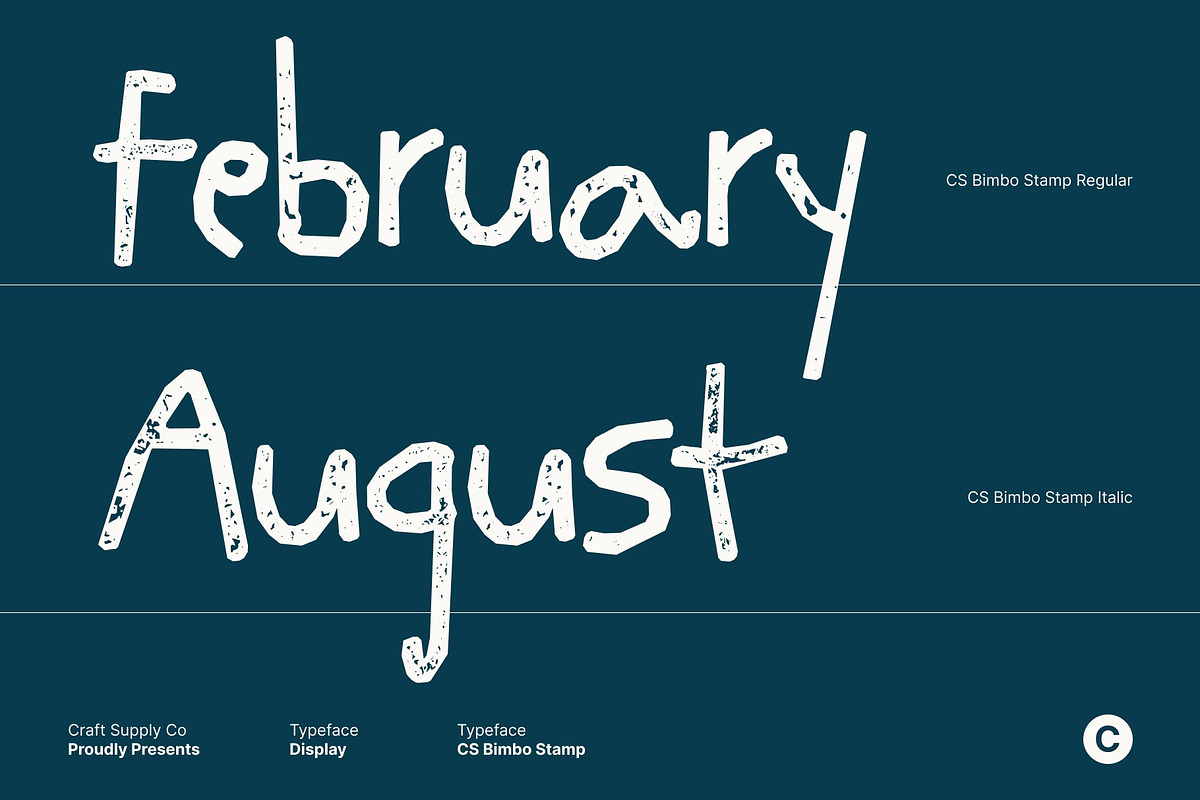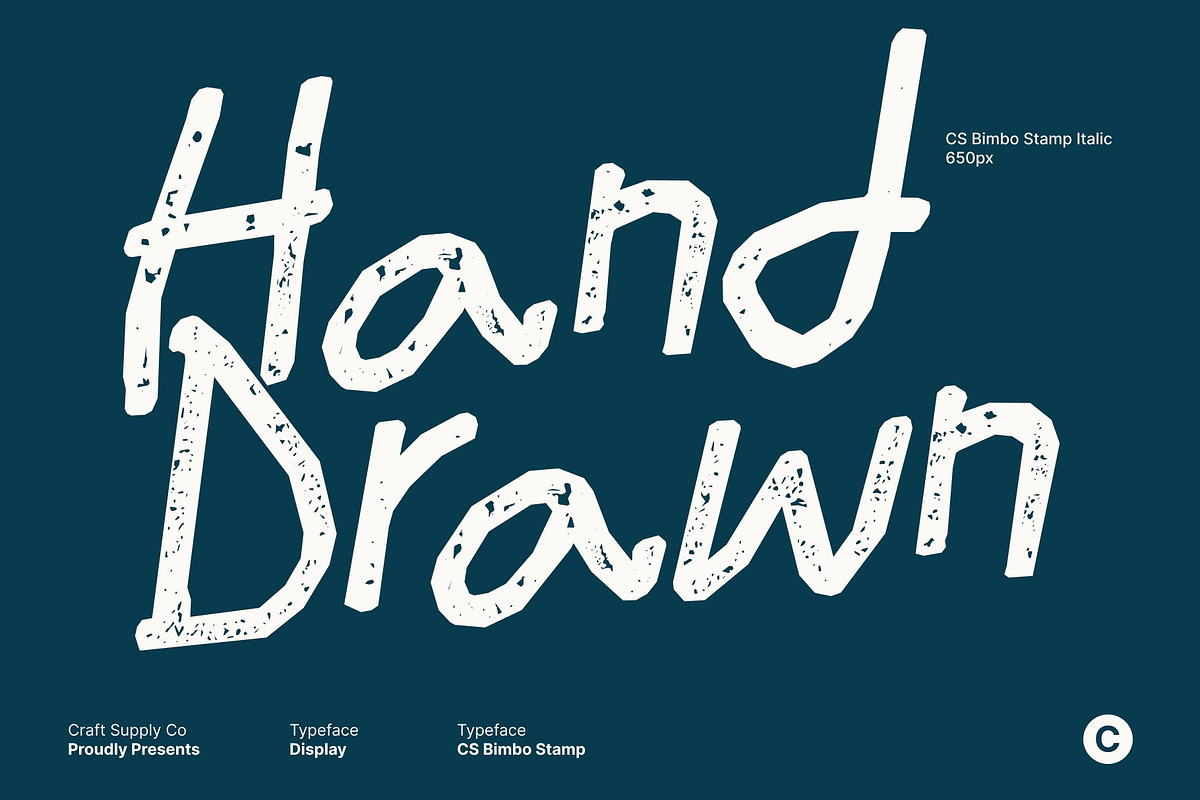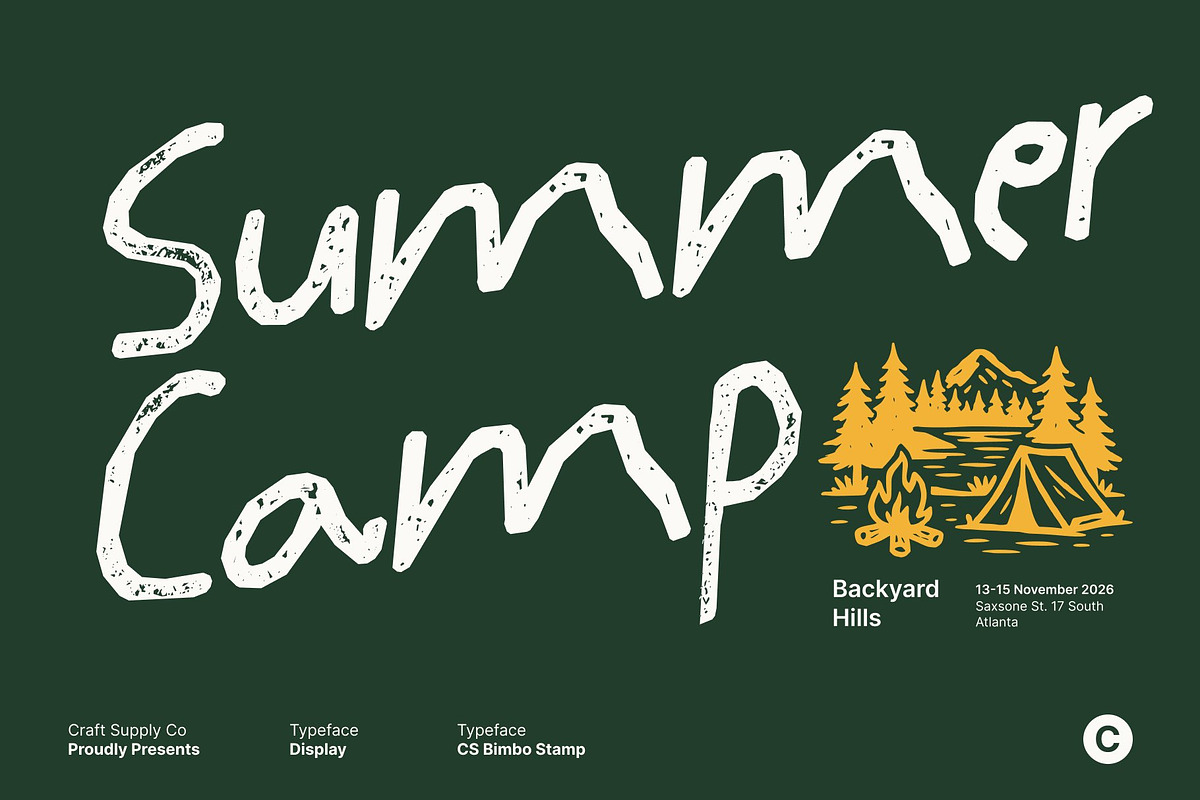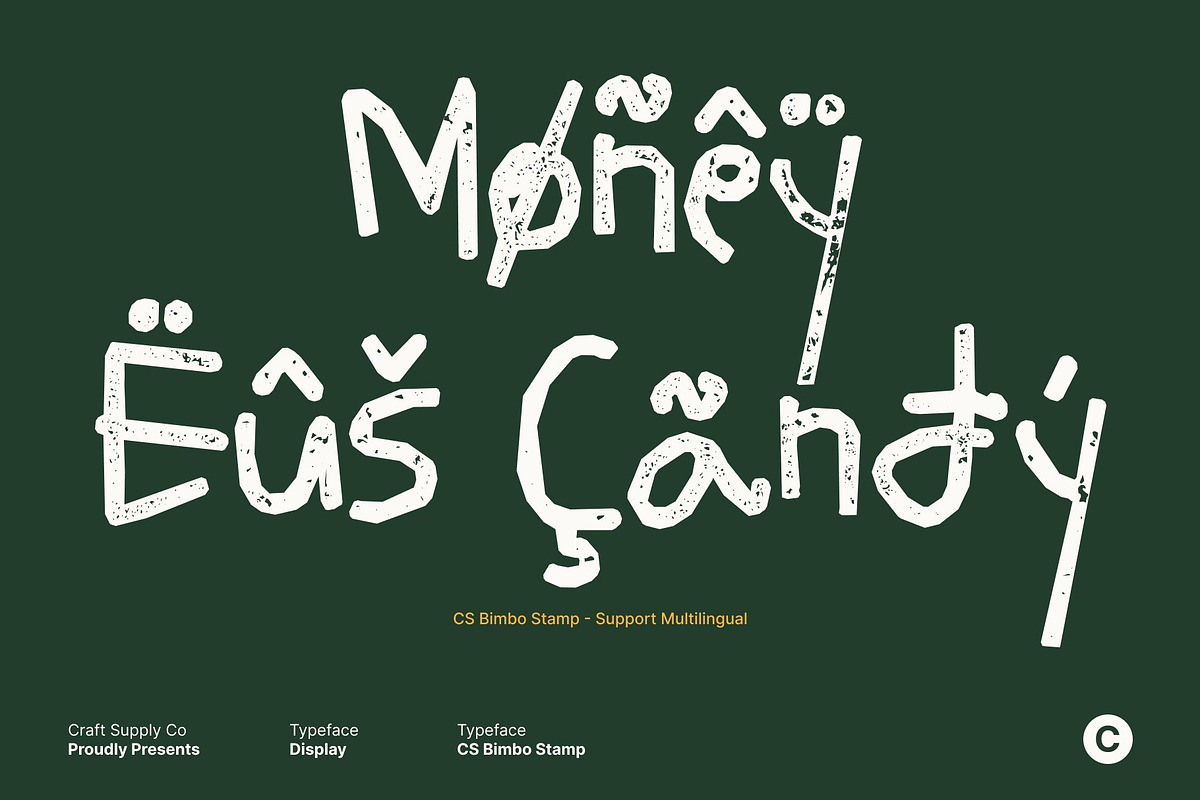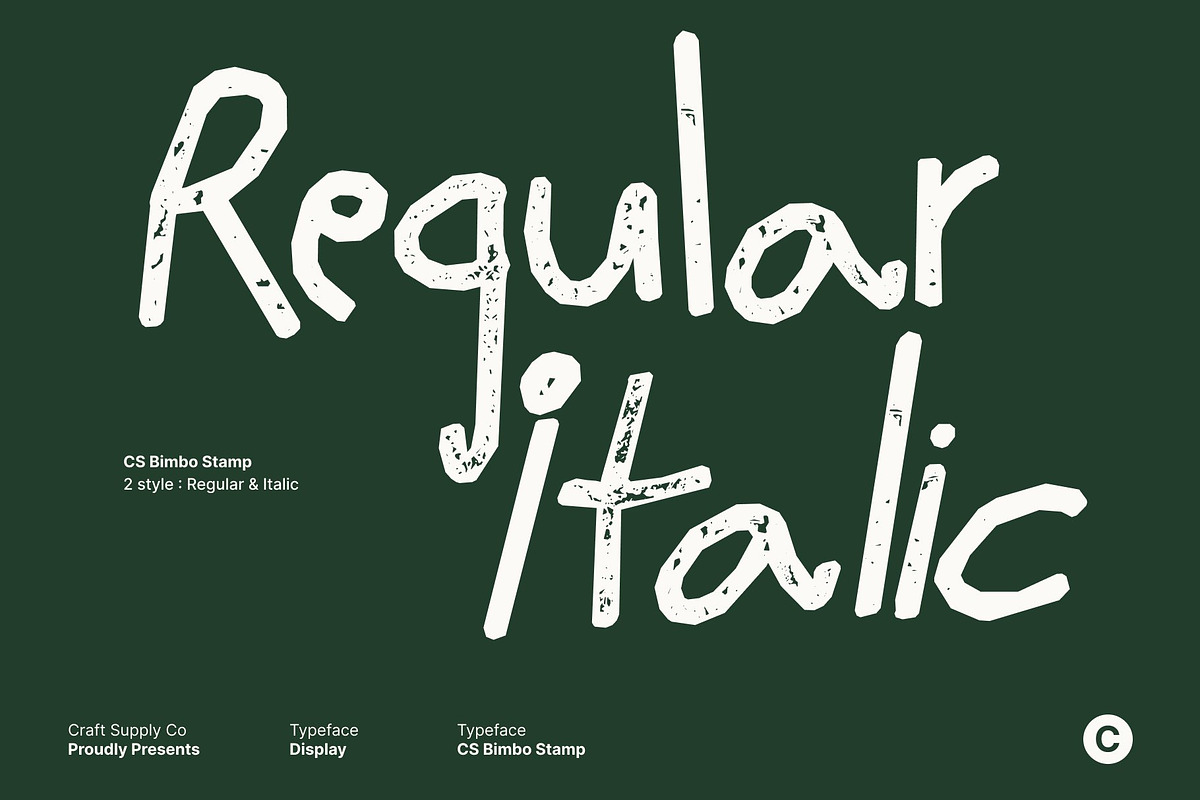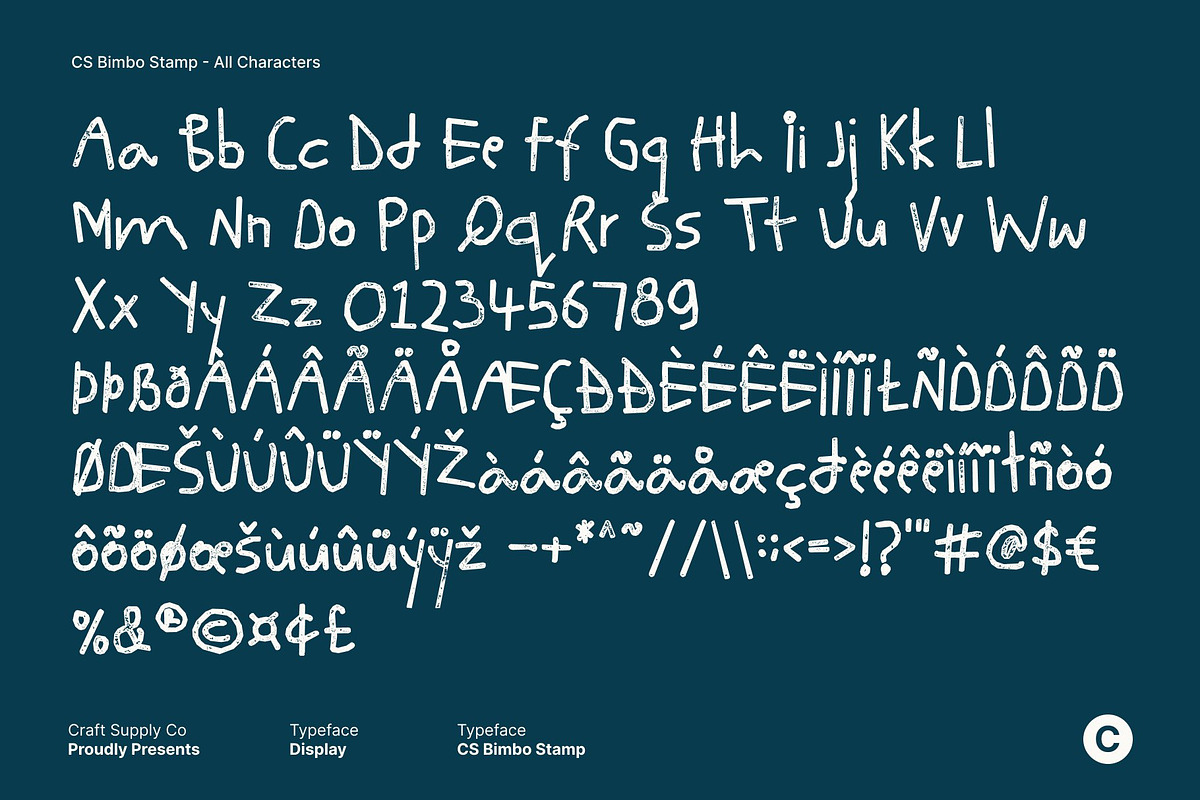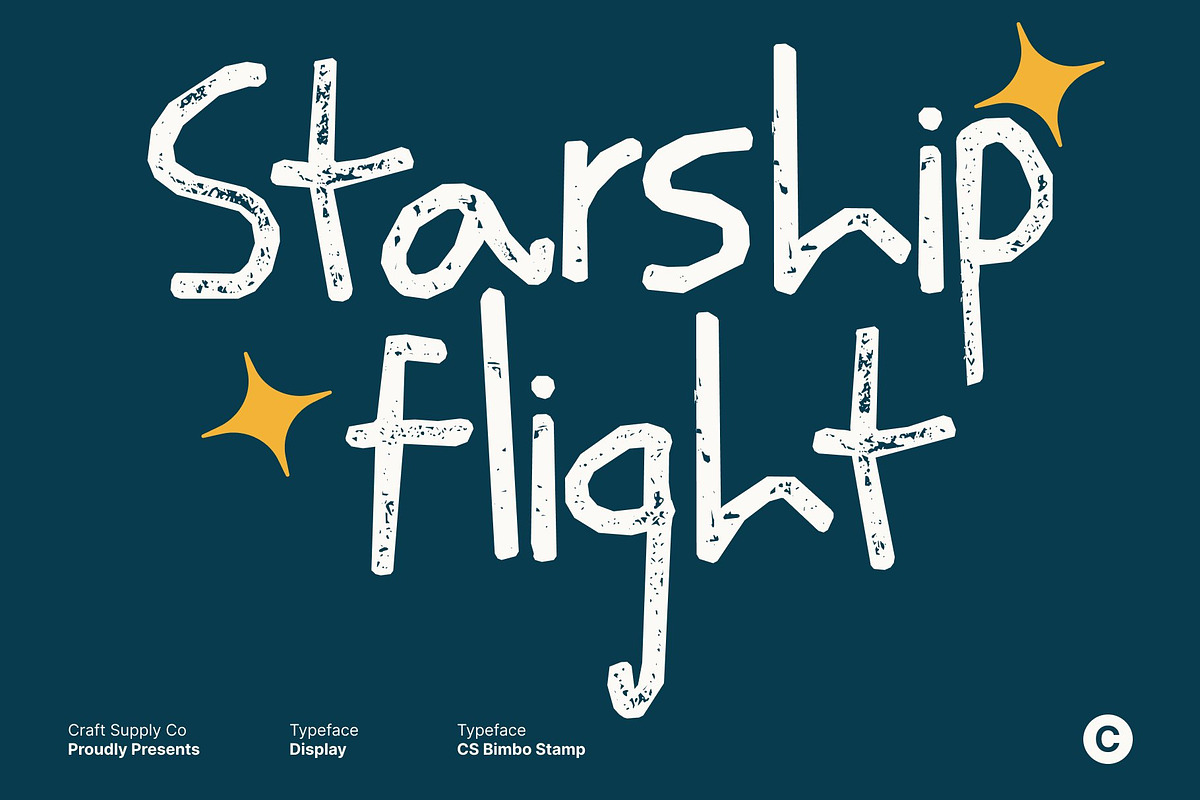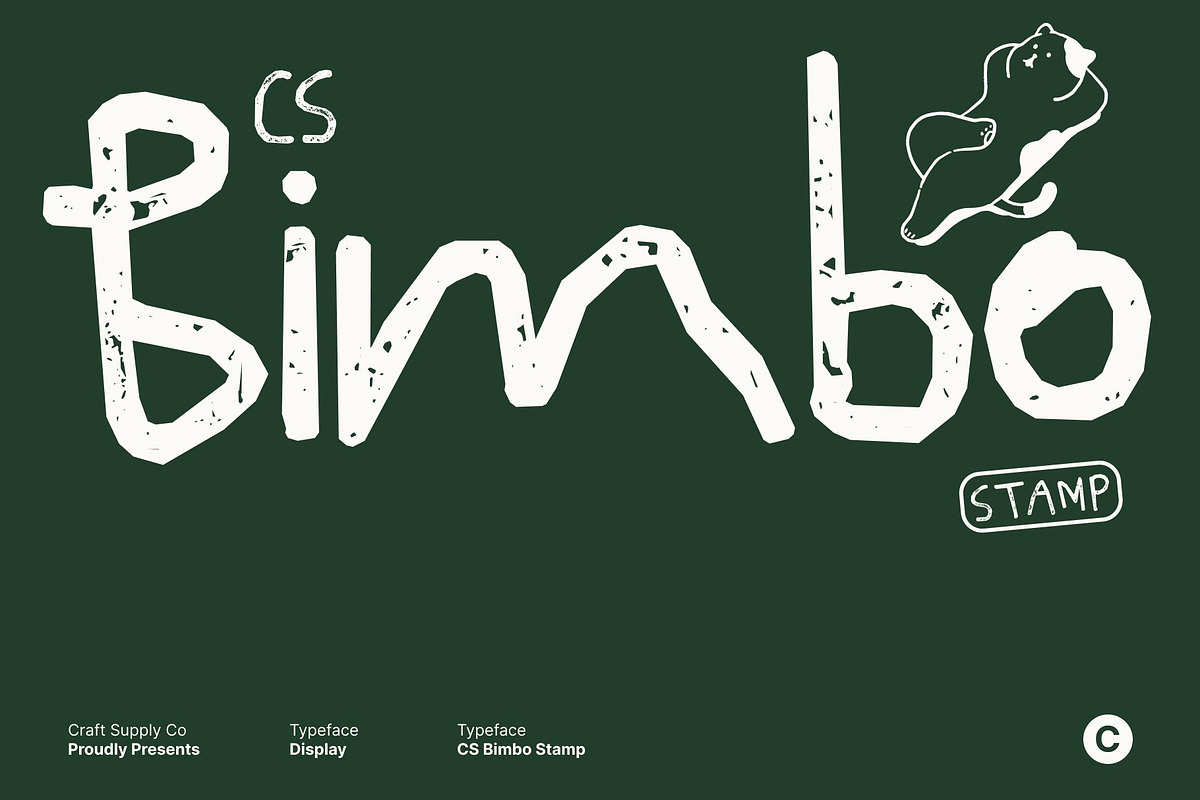
CS Bimbo Stamp
CS Bimbo Stamp – Playful Chaos with Scribbled Charm
Messy Display Font with Stamped Irregular Personality This is a gritty yet stylish messy display font that embraces imperfection as its defining strength. Designed with irregular, freely scribbled letterforms, it captures spontaneity and creative chaos. Enhanced with a stamp effect, the font gains textured depth and distressed edges, giving each character a hand-pressed, vintage feel that turns disorder into expressive personality.
Raw Handcrafted Energy with Vintage Texture Each letter carries the look of hand-drawn strokes and uneven lines, now enriched with stamped imperfections that evoke old prints and handmade impressions. This raw, unpolished aesthetic radiates authenticity and fun, making the font feel lively, artistic, and full of character.
Quirky and Expressive Style with Old-School Charm The playful irregularity of makes it ideal for designs that want to feel energetic, youthful, and original. The added texture enhances its warmth and individuality, helping it stand out in both digital and print projects with a nostalgic, artistic edge.
Perfect for Fun, Creative, and Playful Projects From children’s designs and quirky branding to playful illustrations and DIY-inspired graphics, this font delivers a carefree, expressive vibe. This is the perfect choice for designers who want to capture spontaneity, imagination, and artistic flair infused with vintage stamped charm.
CS Bimbo Stamp Regular
CS Bimbo Stamp Italic